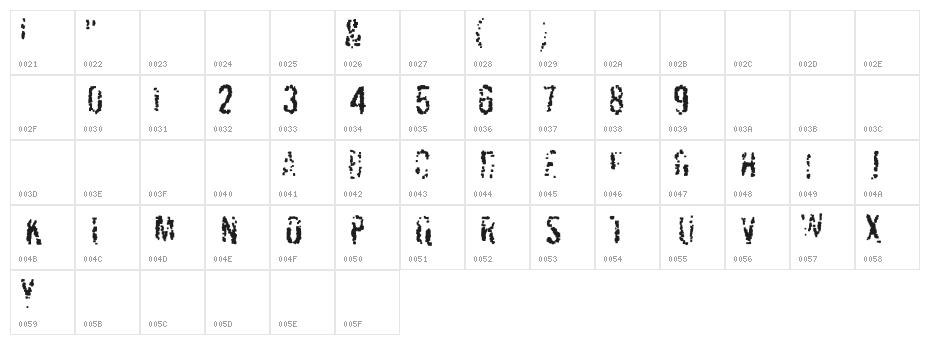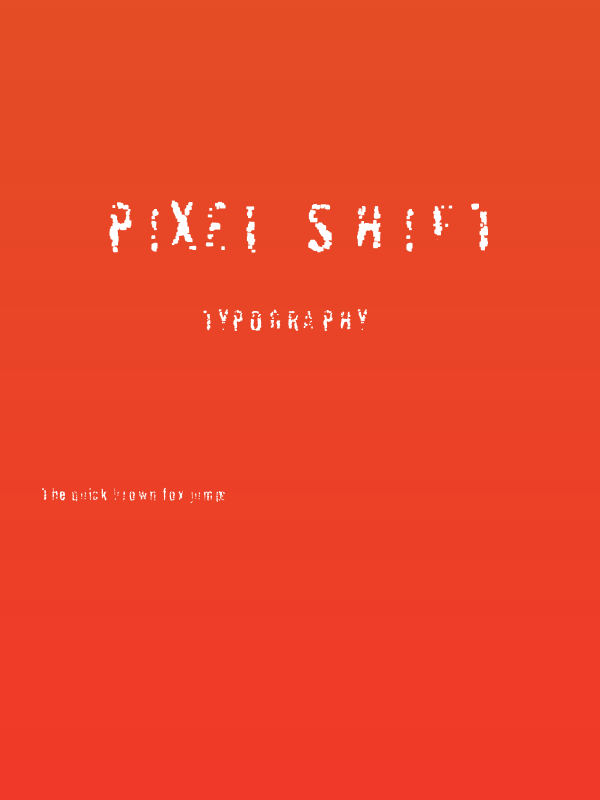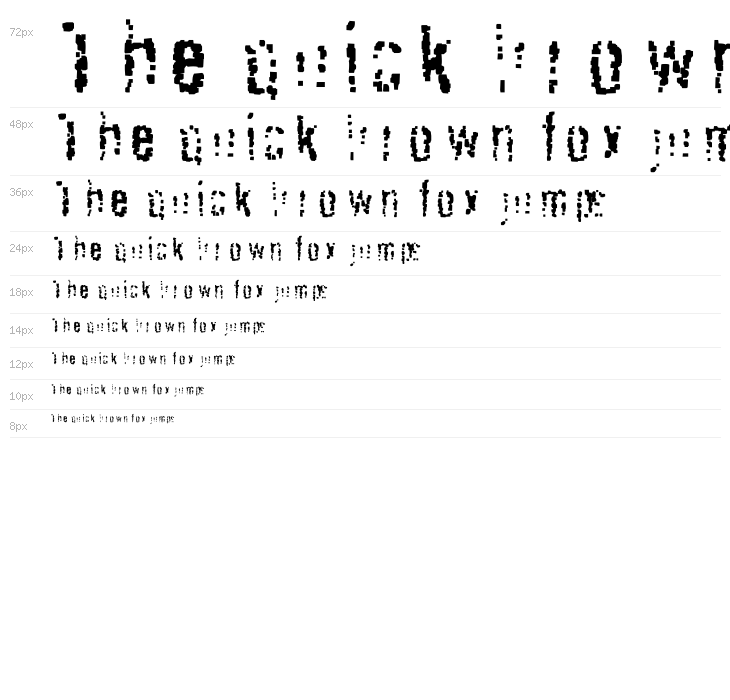
Pixel Shift Font
Pixel Shift Description
This font exhibits a unique, distressed appearance, characterized by a pixelated and fragmented style. The letters and numbers appear as if they are partially eroded or glitching, giving a digital, avant-garde aesthetic. The irregular edges and inconsistent stroke thickness contribute to its distinctive look, making it stand out as a decorative choice. The font maintains legibility despite its unconventional design, with each character retaining its fundamental shape. This style is particularly effective for projects that aim to convey a sense of modernity, technology, or artistic disruption.
| Proposed Projects | Ideal for digital art, tech-themed posters, album covers, and experimental design projects. |